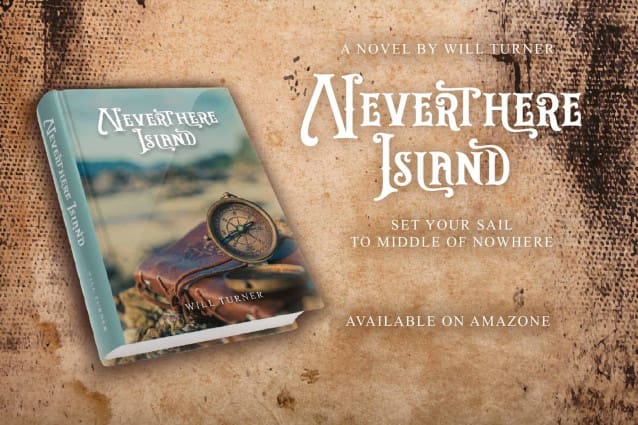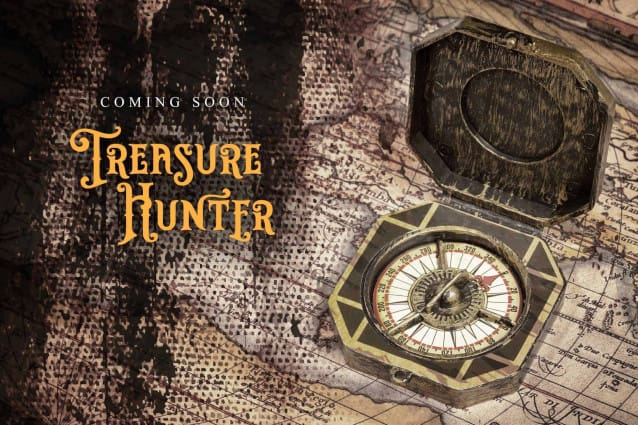
Rictor Barbossa Font
Rictor Barbossa Font is a gothic styled and bold blackletter font. It is PUA encoded which means you can access all glyphs and swashes with ease!.